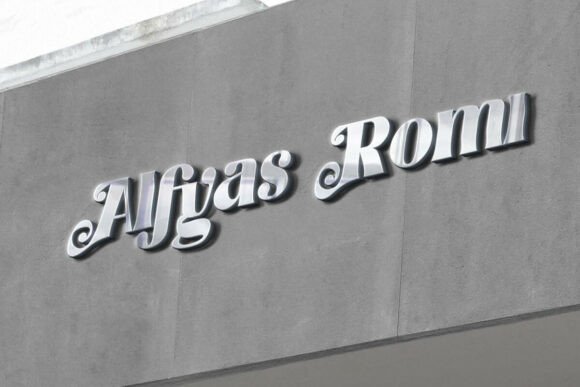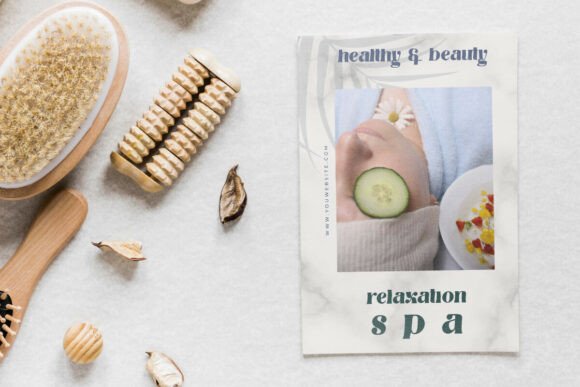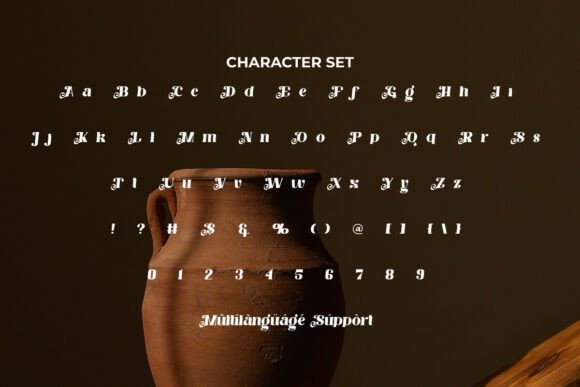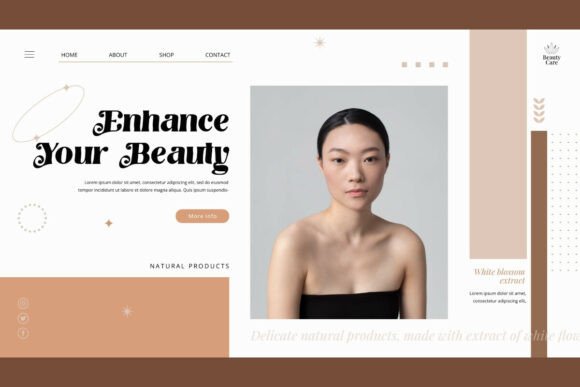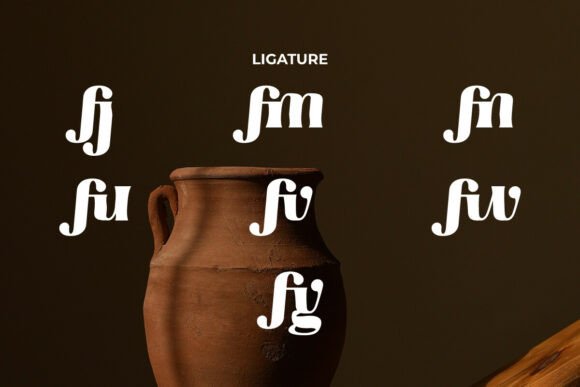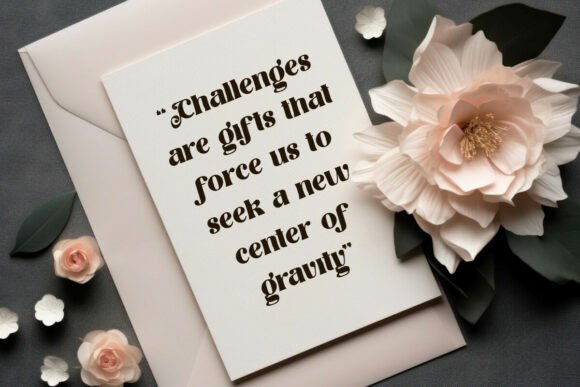
Get Ready to Groove: The Brafio Font Takes Center Stage
Imagine yourself in a dimly lit disco, surrounded by flashing lights and the infectious beats of the 70s. The air is electric, and you can’t help but move to the rhythm. This is the perfect moment to introduce you to the Brafio Font, a bold and expressive serif display font that captures the essence of the funk era.
This unique font is designed to make a statement, with its massive curves, confident weight, and dynamic forms that are sure to grab attention. As a designer, you’ll appreciate the versatility of Brafio Font, which is perfect for branding that demands a bold and fun aesthetic. Whether you’re working on a fashion campaign, music poster, or product packaging, Brafio Font is the perfect choice to add a touch of retro-modern flair to your design.
Brafio Font Key Features
- Unique Characteristics: Brafio Font features a unique blend of modern and traditional elements, with a distinctive flair that sets it apart from other fonts.
- Scalability: Brafio Font is highly scalable, allowing it to be used in a variety of contexts, from small text to large headlines, without losing its clarity or impact.
Brafio Font Review
I recently had the chance to work with the Brafio font, and I must say it’s an interesting addition to any design project. Here are some of its strengths and weaknesses:
- Unique aesthetic: Brafio’s blend of modern and vintage elements gives it a distinctive look that can add character to any design.
- High-quality vector files: The font’s vector files are well-designed and easy to edit, making it a pleasure to work with.
- Good legibility: Despite its unique style, Brafio is still highly legible, making it suitable for body text and other reading materials.
- Overuse of ornaments: While the ornaments are nice, they can make the font feel cluttered if used excessively.
- Limited language support: Brafio is primarily designed for English and may not be suitable for designs that require support for multiple languages.
- Not ideal for small text: Due to its ornate design, Brafio may not be the best choice for small text or titles.
Overall, I think Brafio is a great addition to any designer’s toolkit. While it may have some limitations, its unique aesthetic and high-quality vector files make it a great choice for designs that require a bit of flair. With careful use, Brafio can add a touch of elegance and sophistication to any project.
Tips for Getting the Most Out of Brafio Font
To get the most out of Brafio Font, use it in conjunction with bold or italic text to create visual interest. You can also use it in combination with other fonts to create a unique typography style.
Brafio Font is commonly used in modern branding, logos, and marketing materials. It’s also used in digital products, such as mobile apps and websites, to create a clean and minimalist design aesthetic.